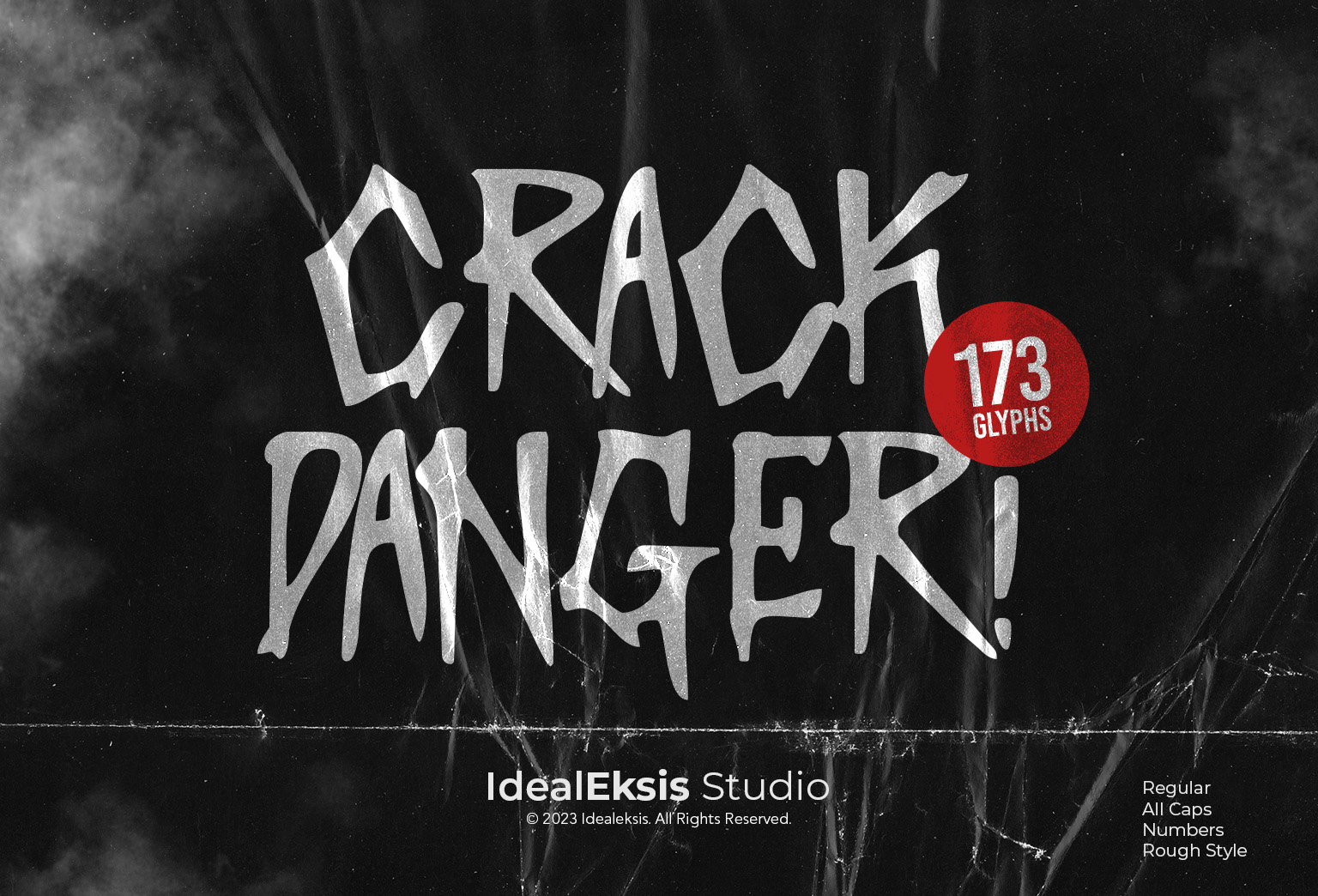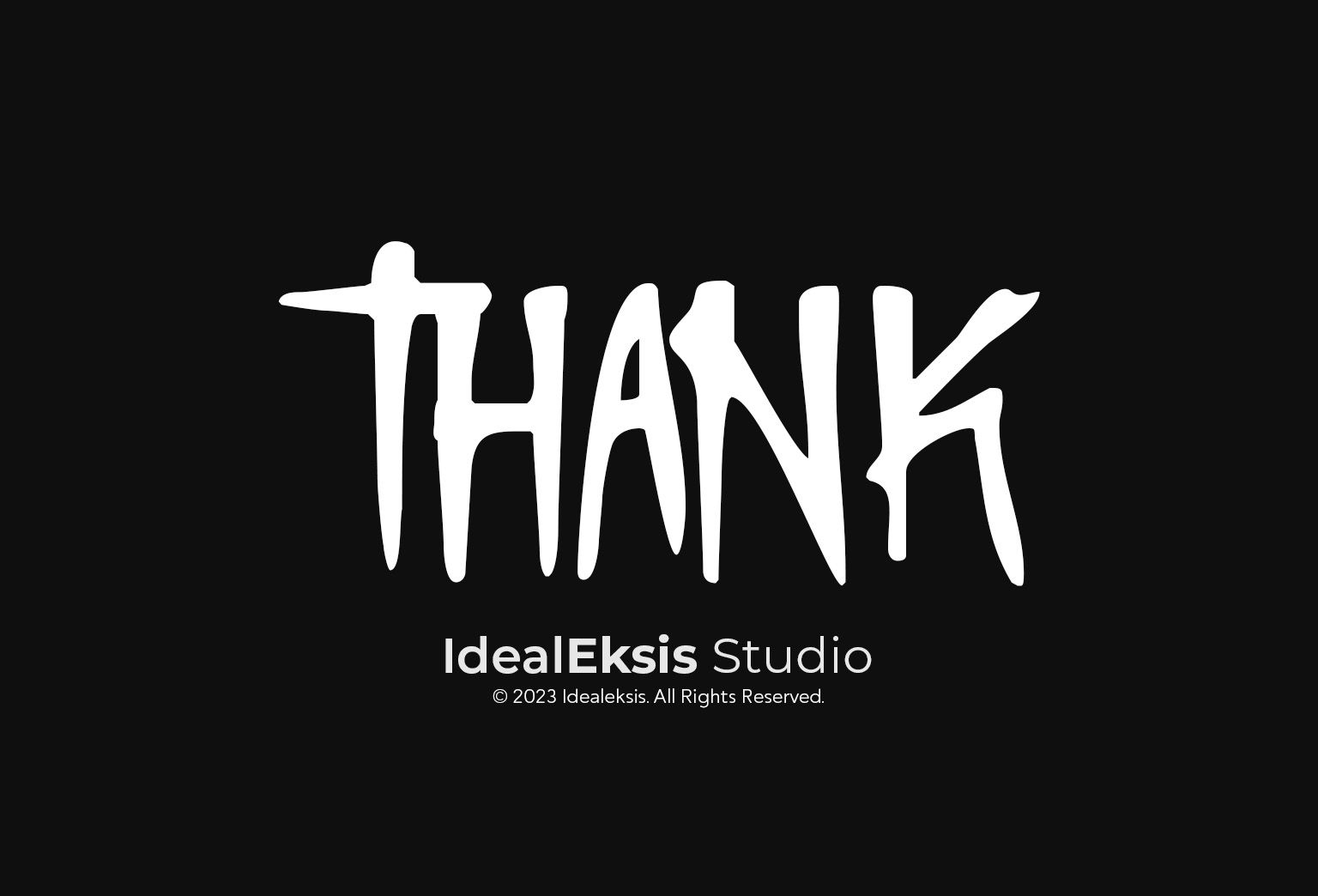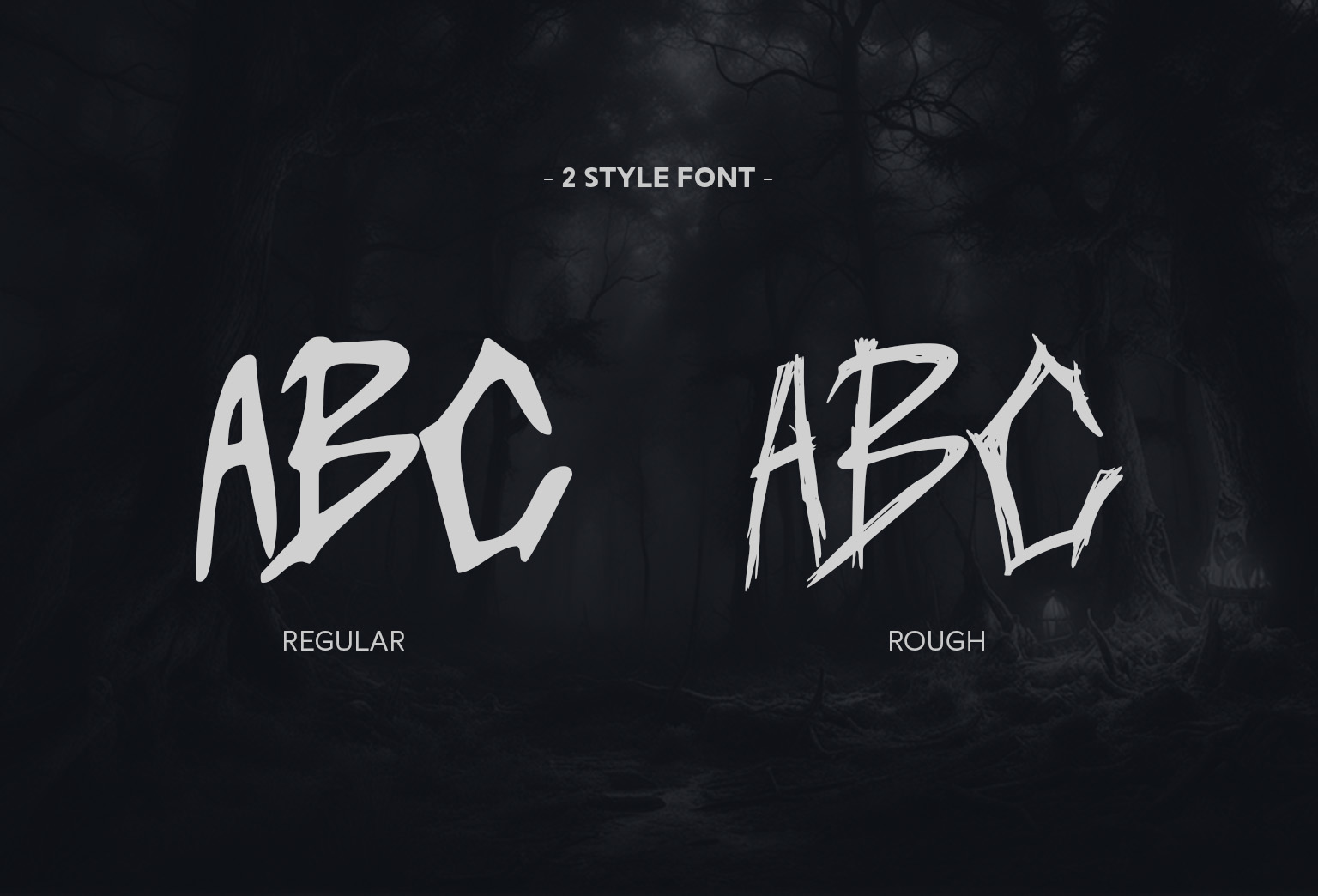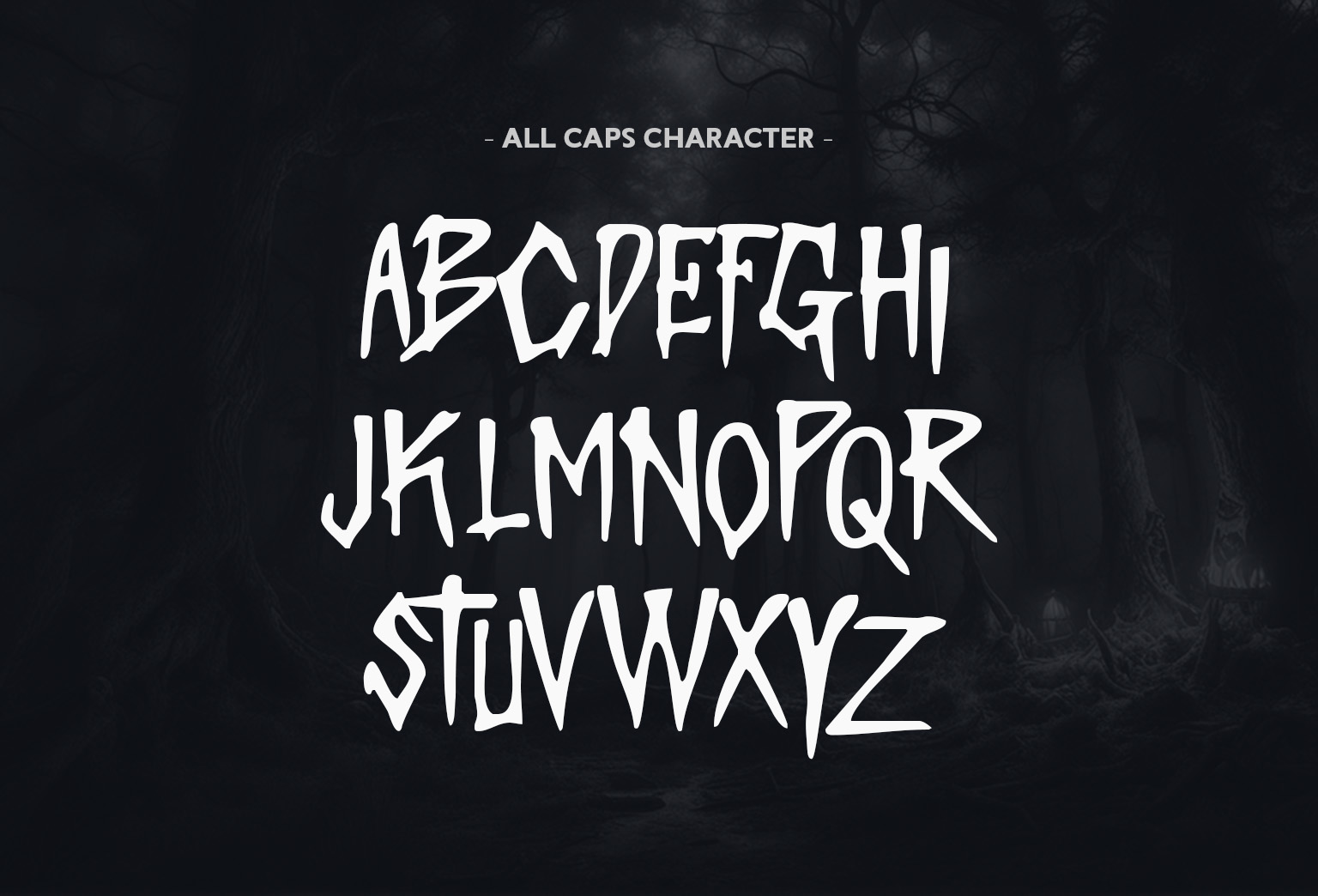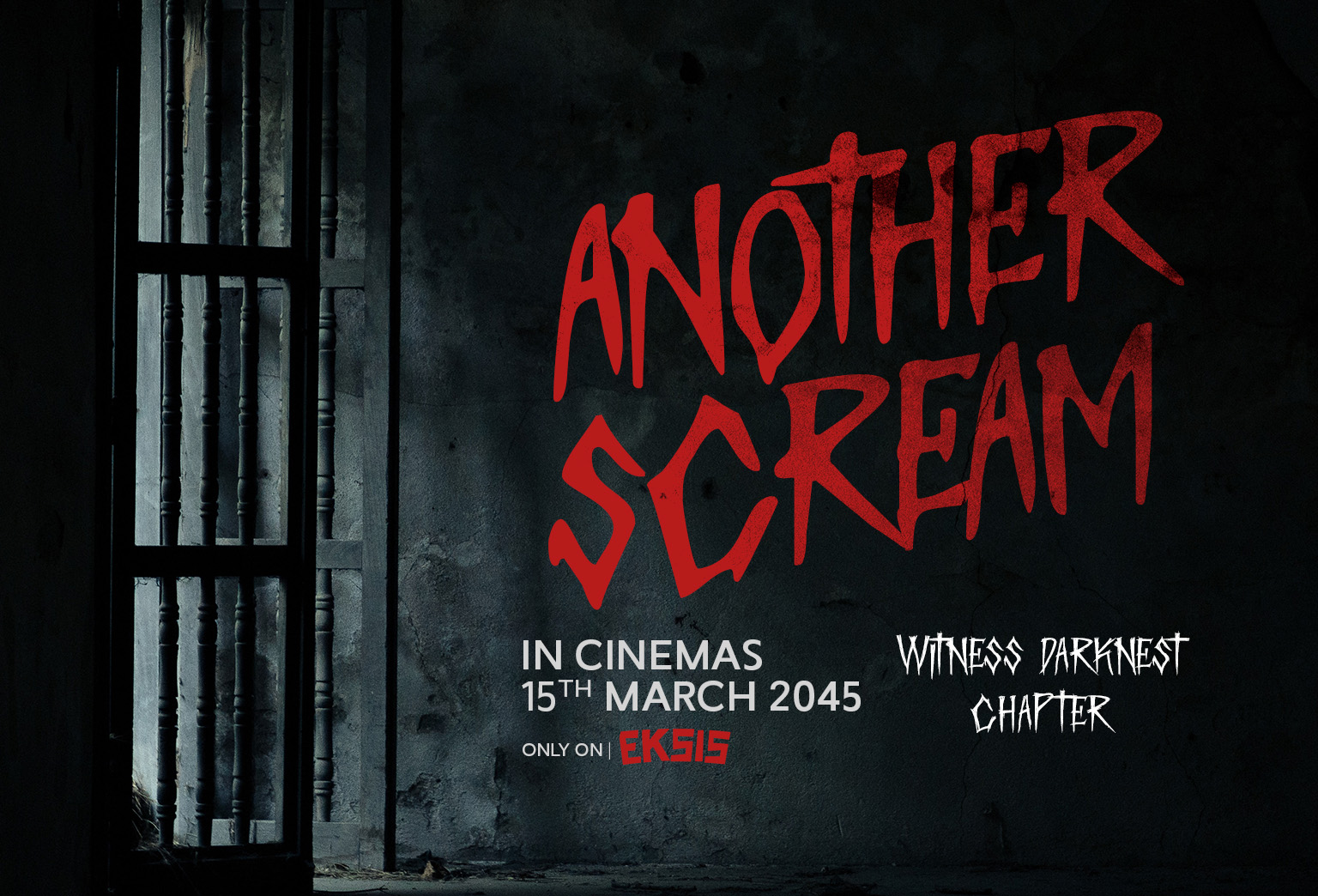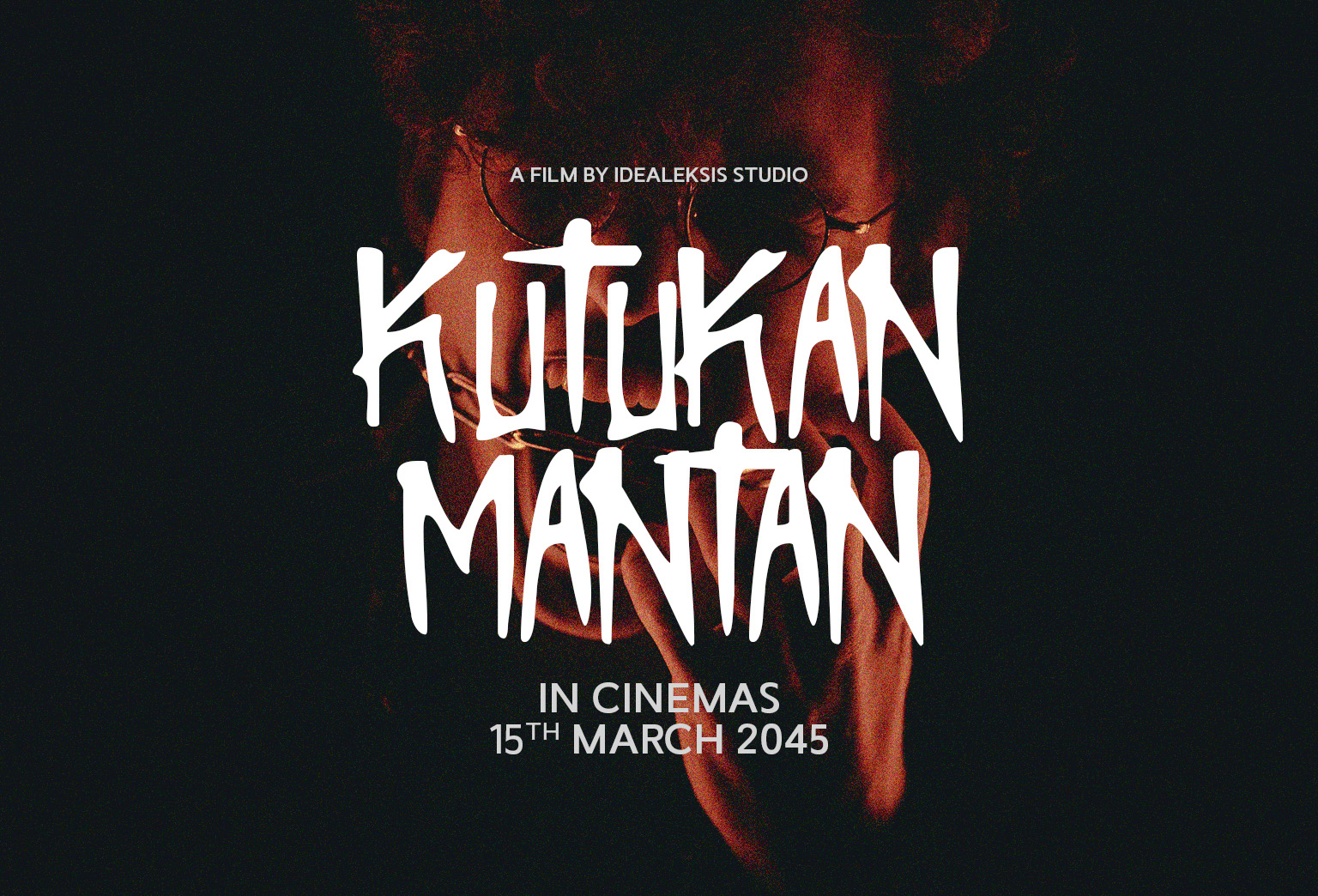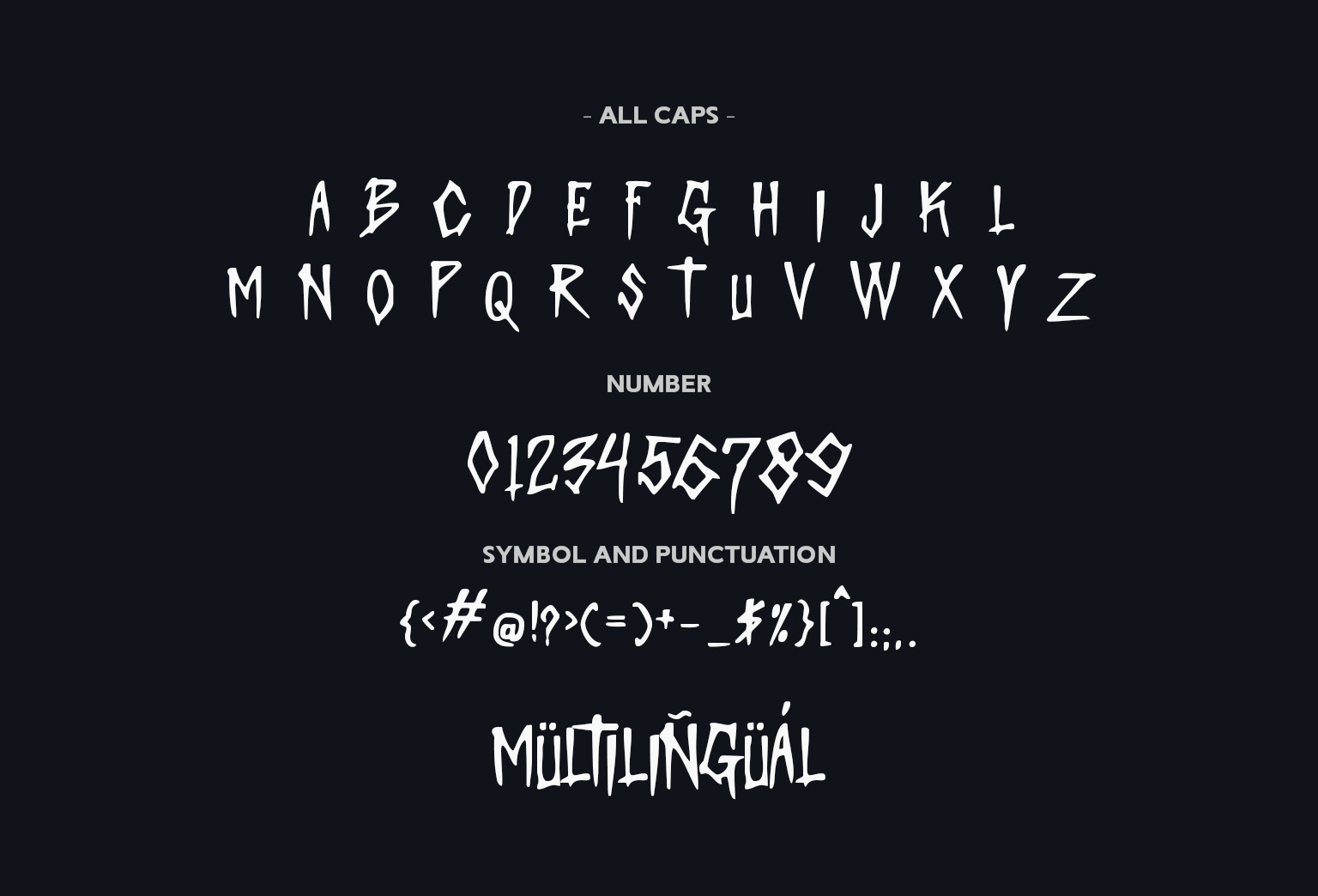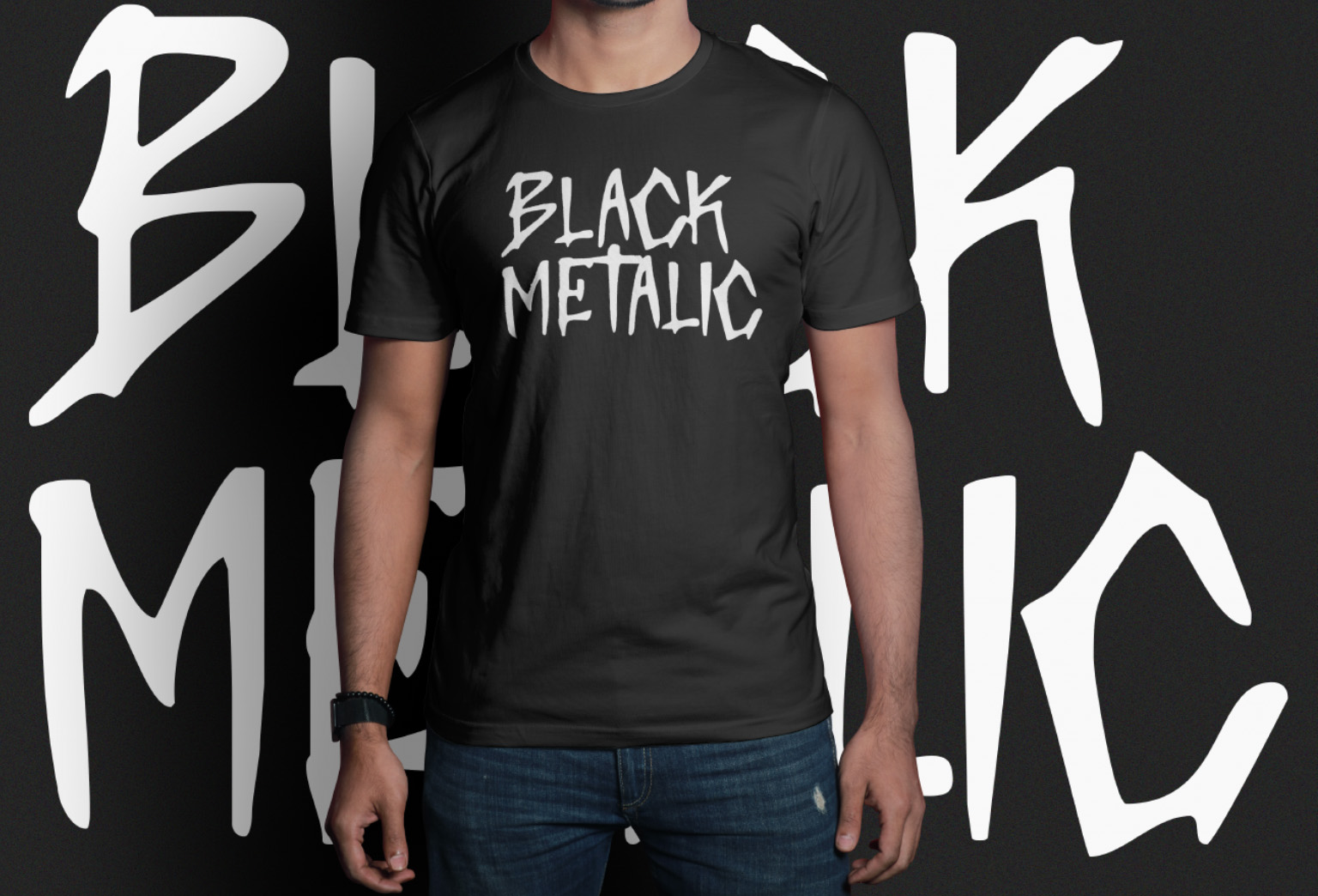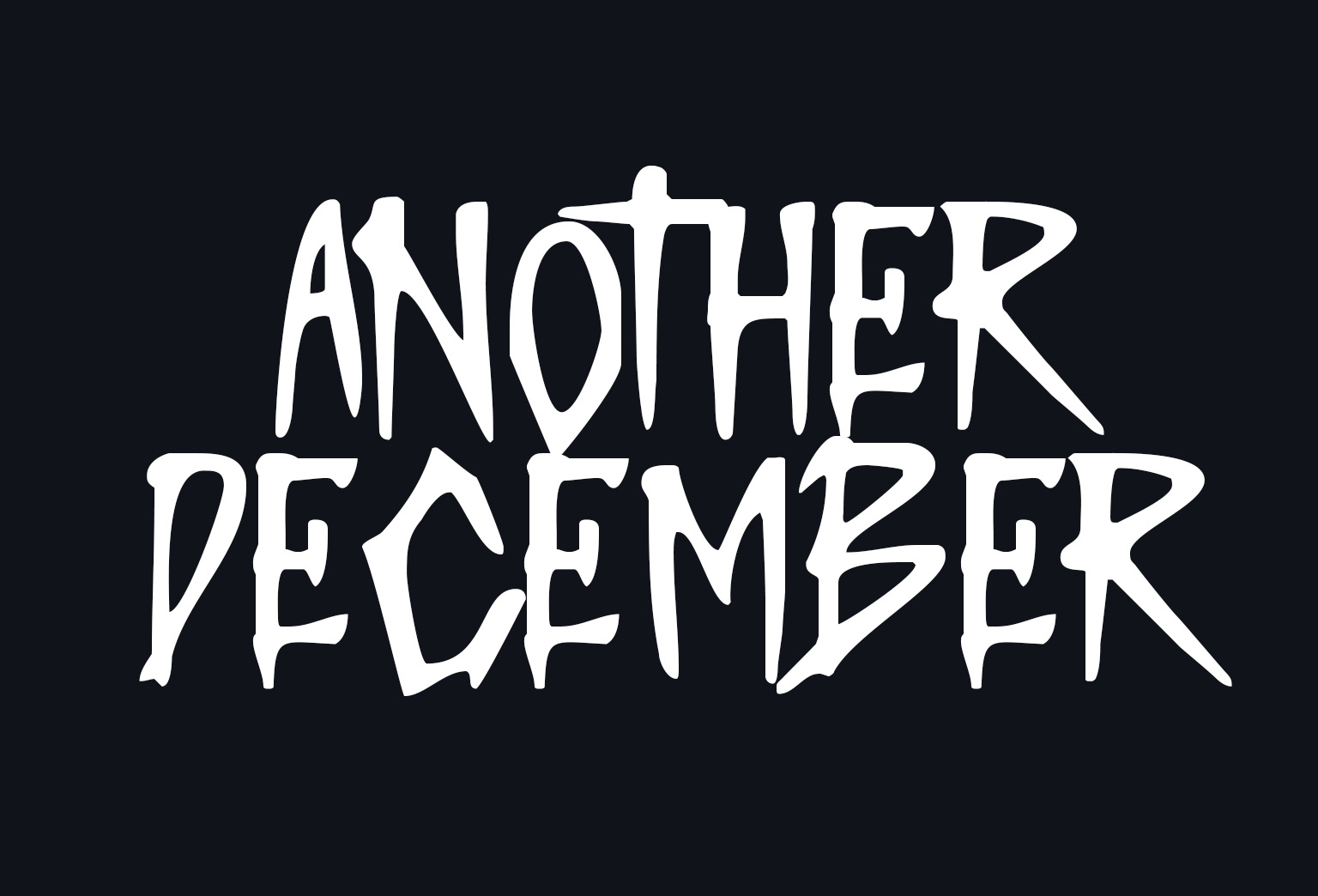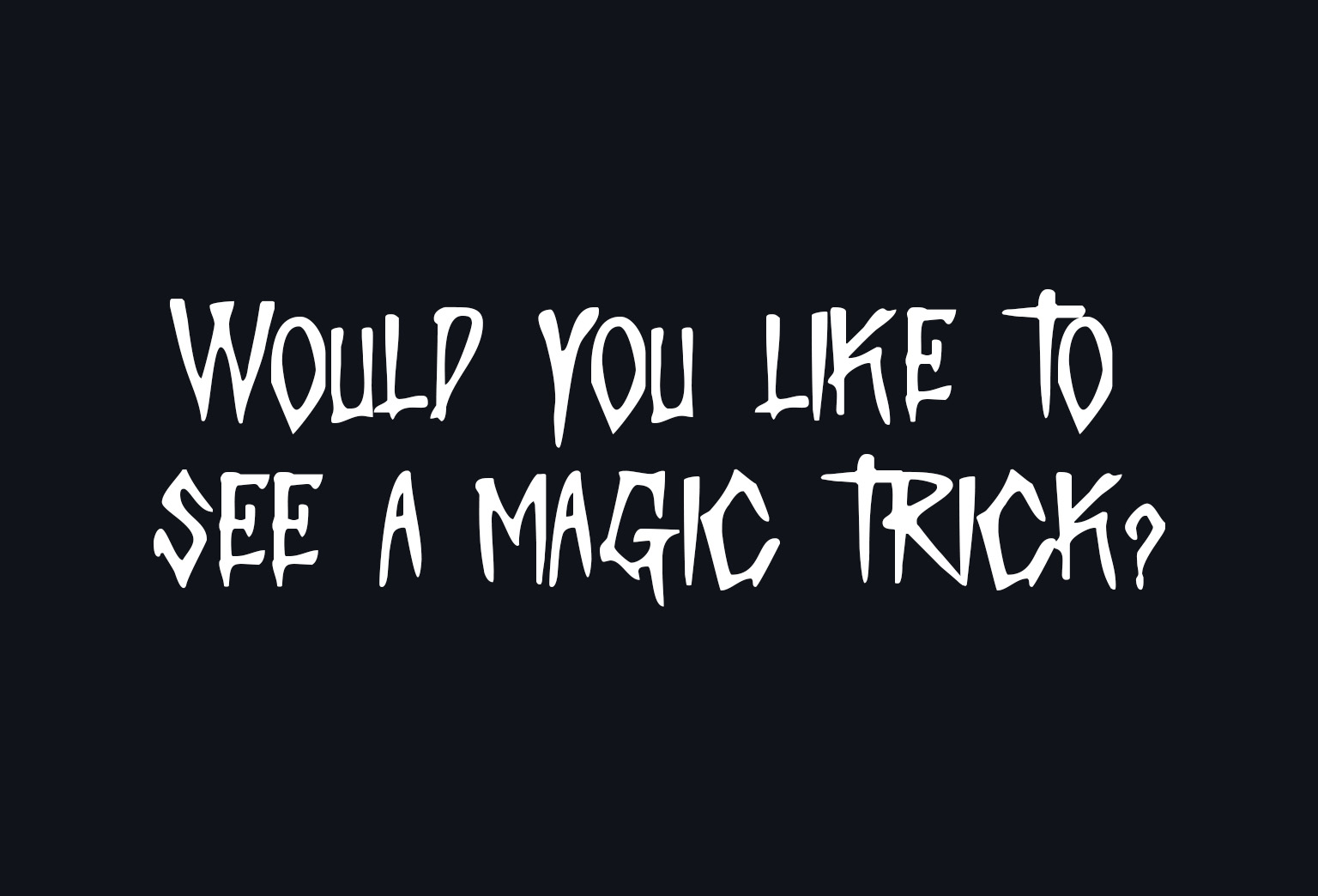
Crack Danger
Crack Danger font, as the name suggests, embodies an essence of horror and suspense in its design. This chilling typeface seamlessly blends elements of fear and intrigue, making it a perfect choice for projects that seek to evoke a sense of darkness and foreboding. The letters are meticulously crafted with jagged edges, irregular strokes, and unsettling angles, contributing to an overall feeling of unease. What’s Included: (OTF/TTF) Uppercase Only Standard glyphs Web Fonts Multilingual Accent Works on PC & Mac, Simple installation Accessible in Adobe Illustrator, Adobe Photoshop, Adobe InDesign, even work on Microsoft Word. PUA Encoded Characters – Fully accessible without additional design software. Fonts include multilingual support